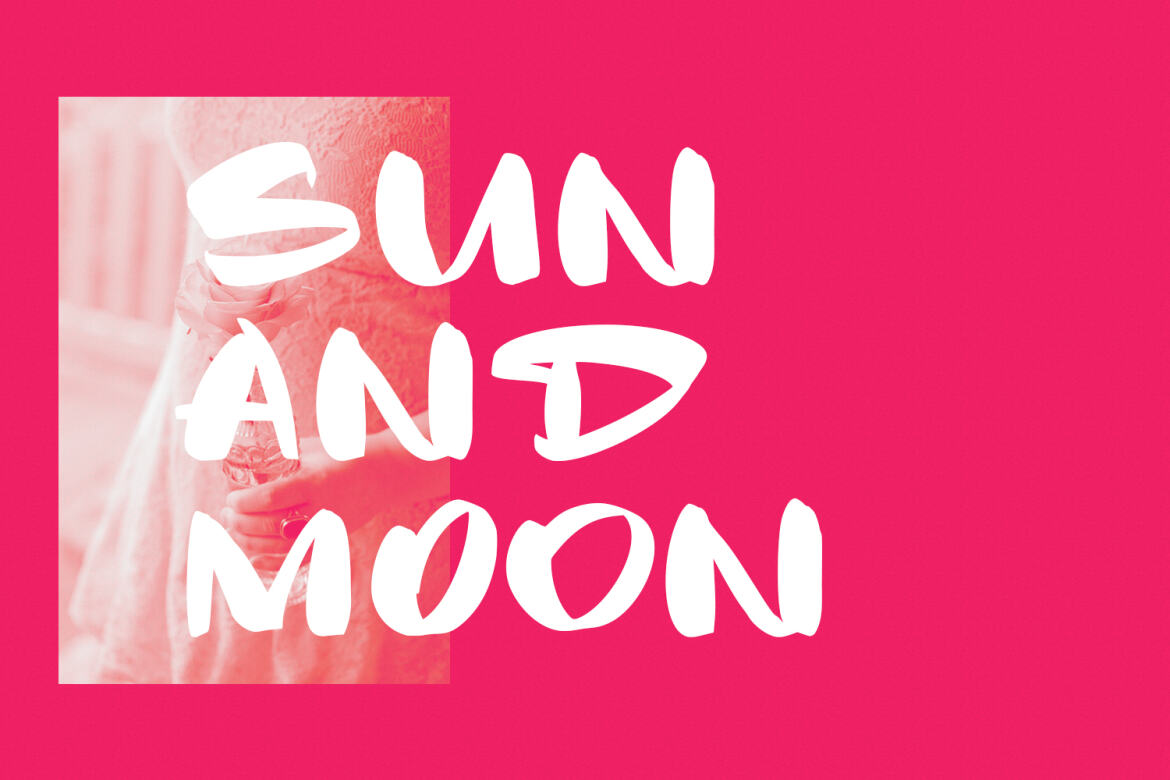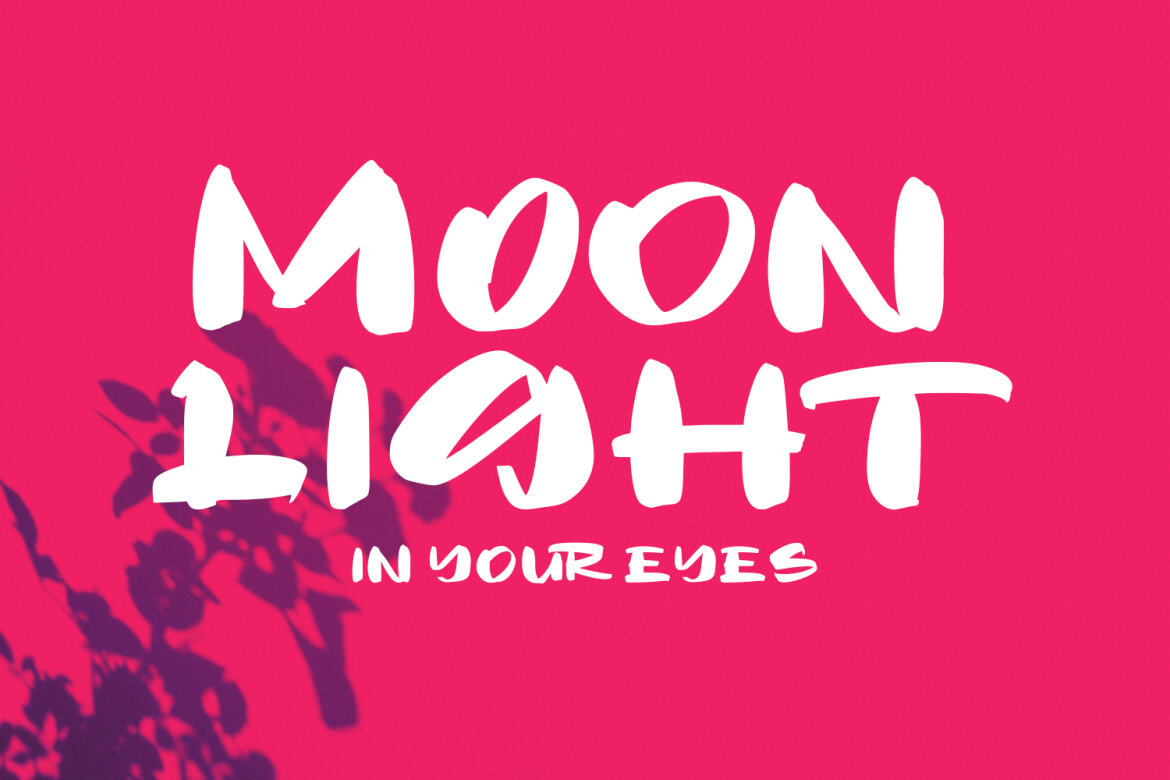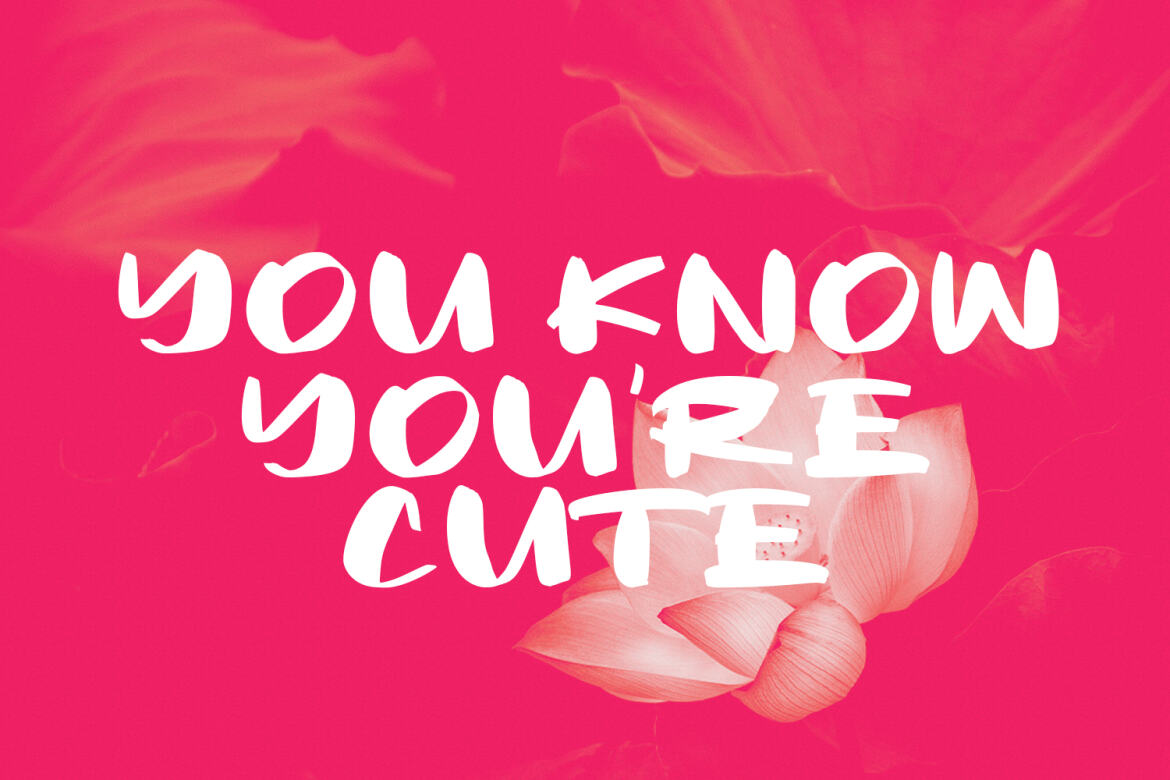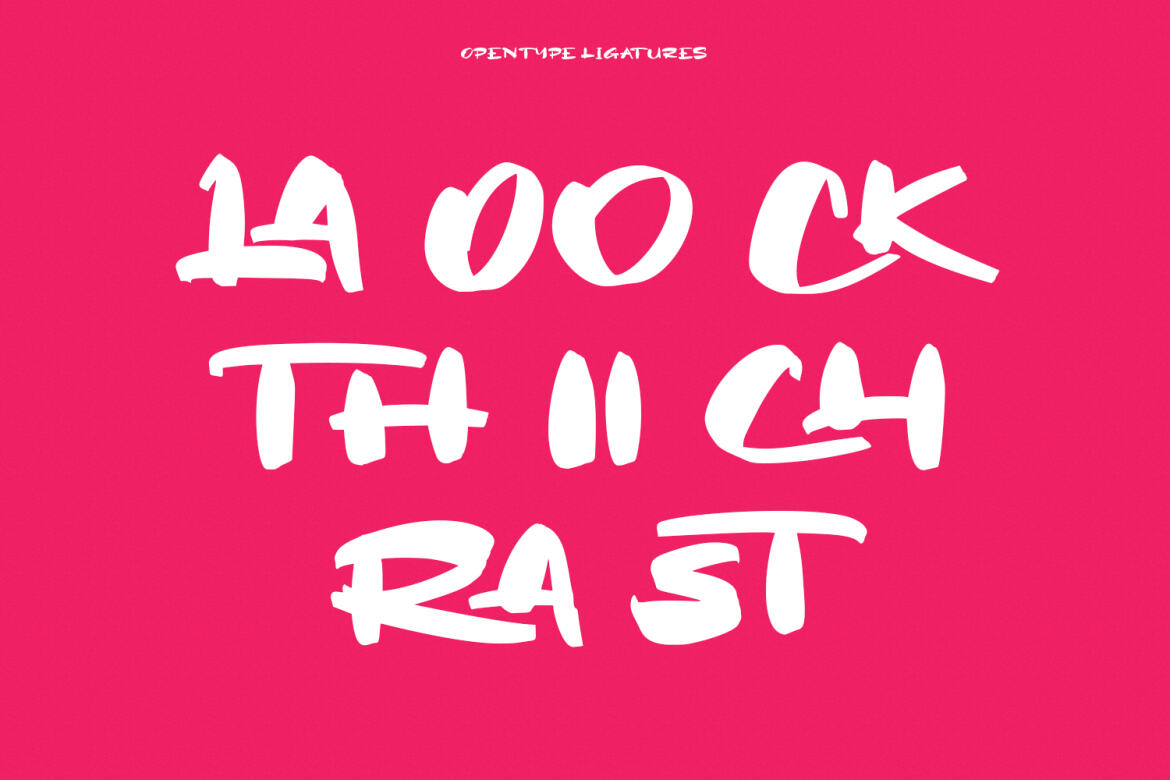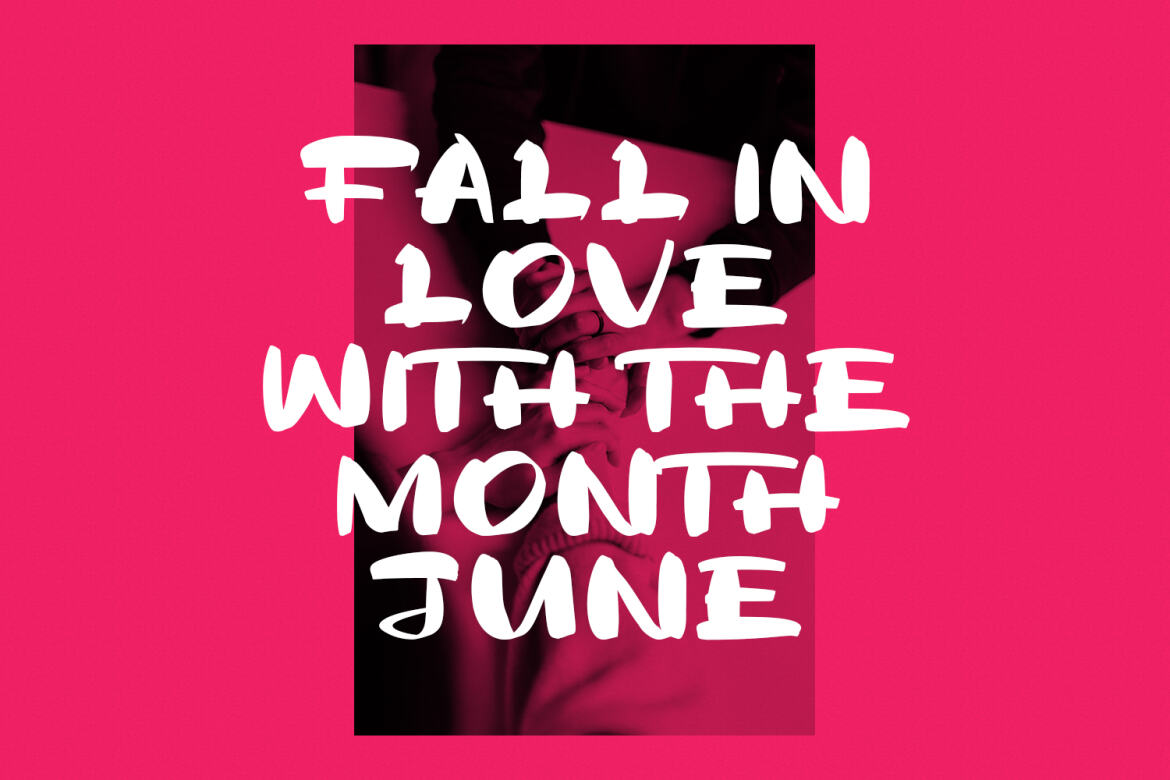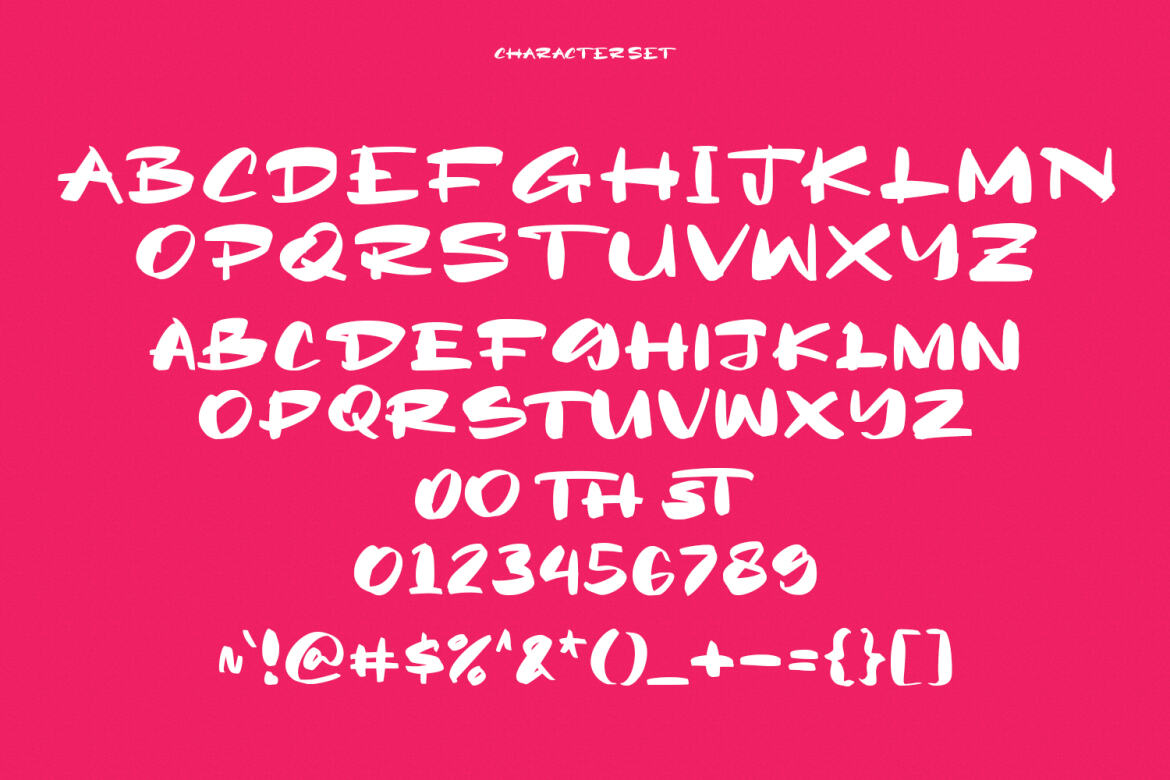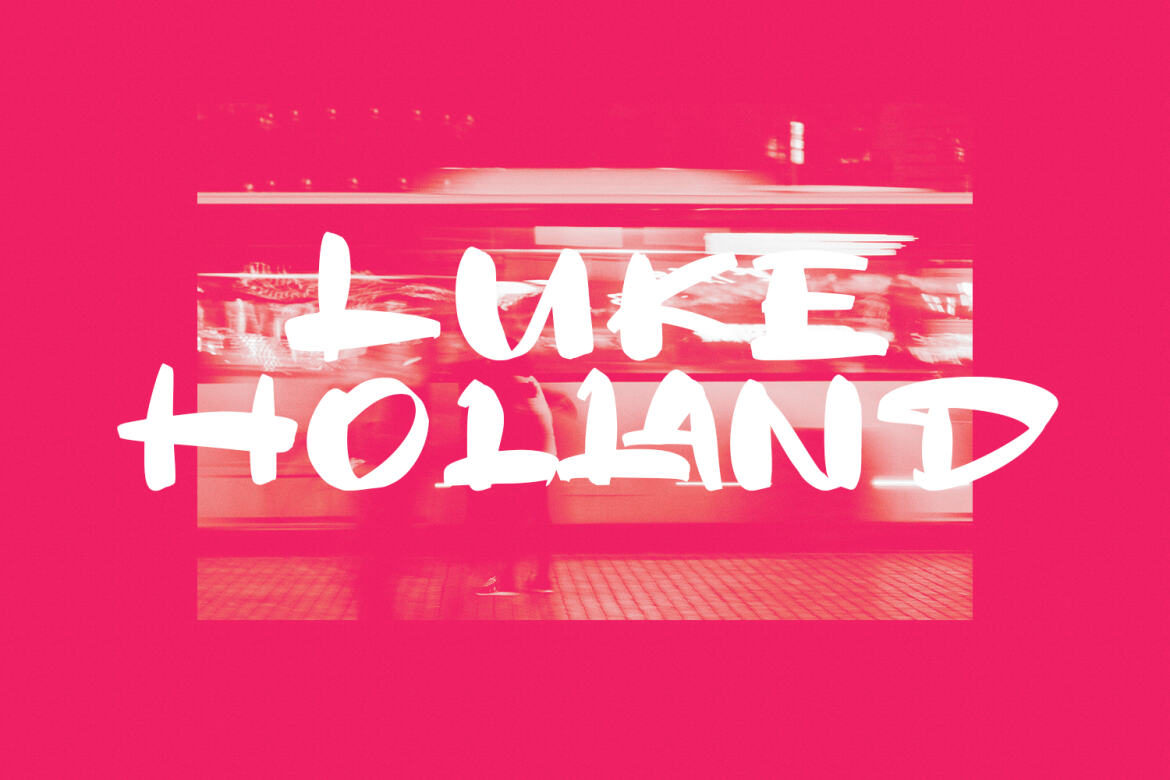
Hatchira Handwritten Free Font
Hatchira
Hatchira is a Japan vibes handwritten display font. With reverse contrast stroke, fun character. To give you an extra creative work. Hatchira font support multilingual more than 100+ language. This font is good for logo design, Social media, Movie Titles, Books Titles, a short text even a long text letter and good for your secondary text font with sans or serif. Make a stunning work with Hatchira font.